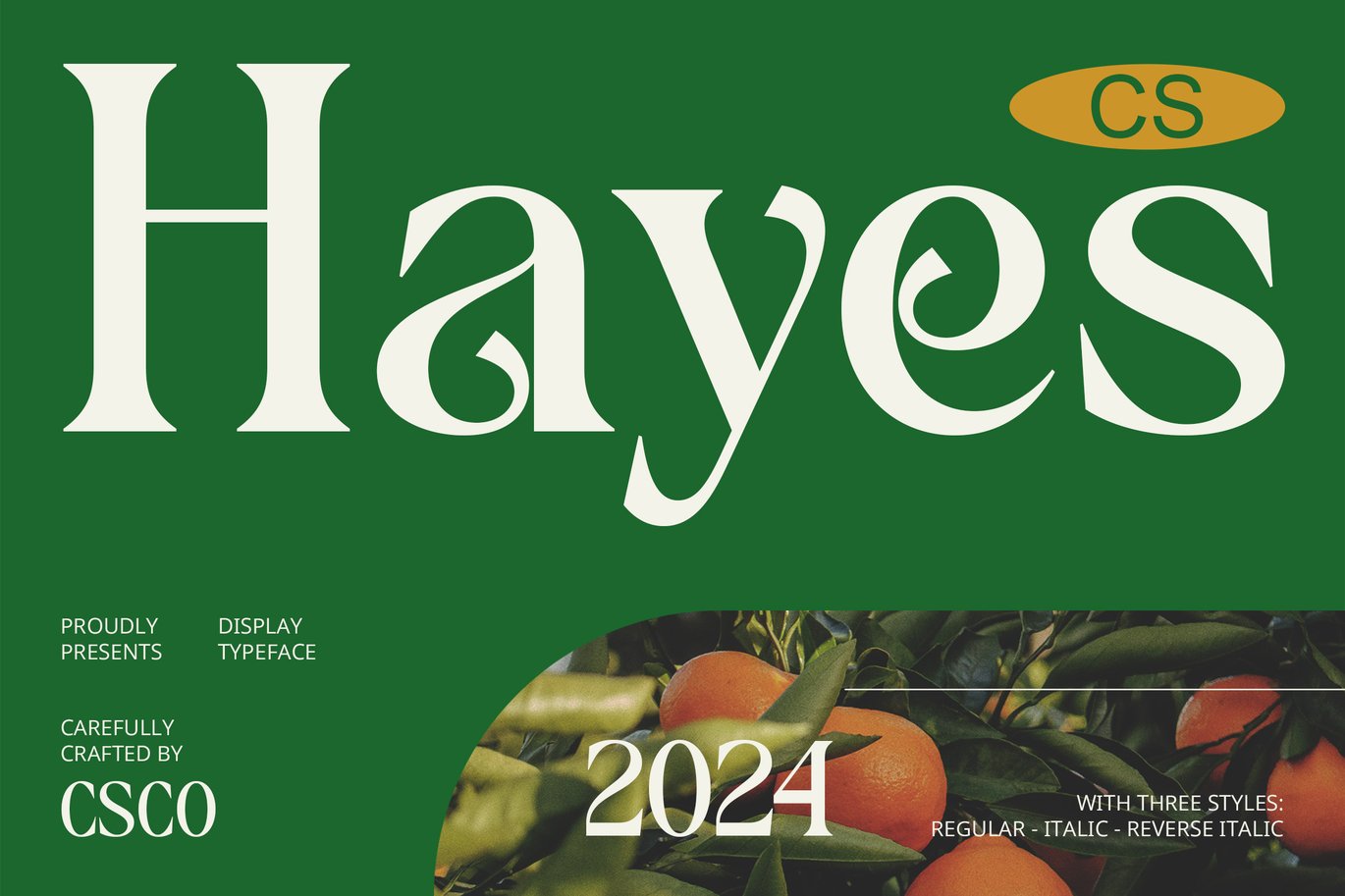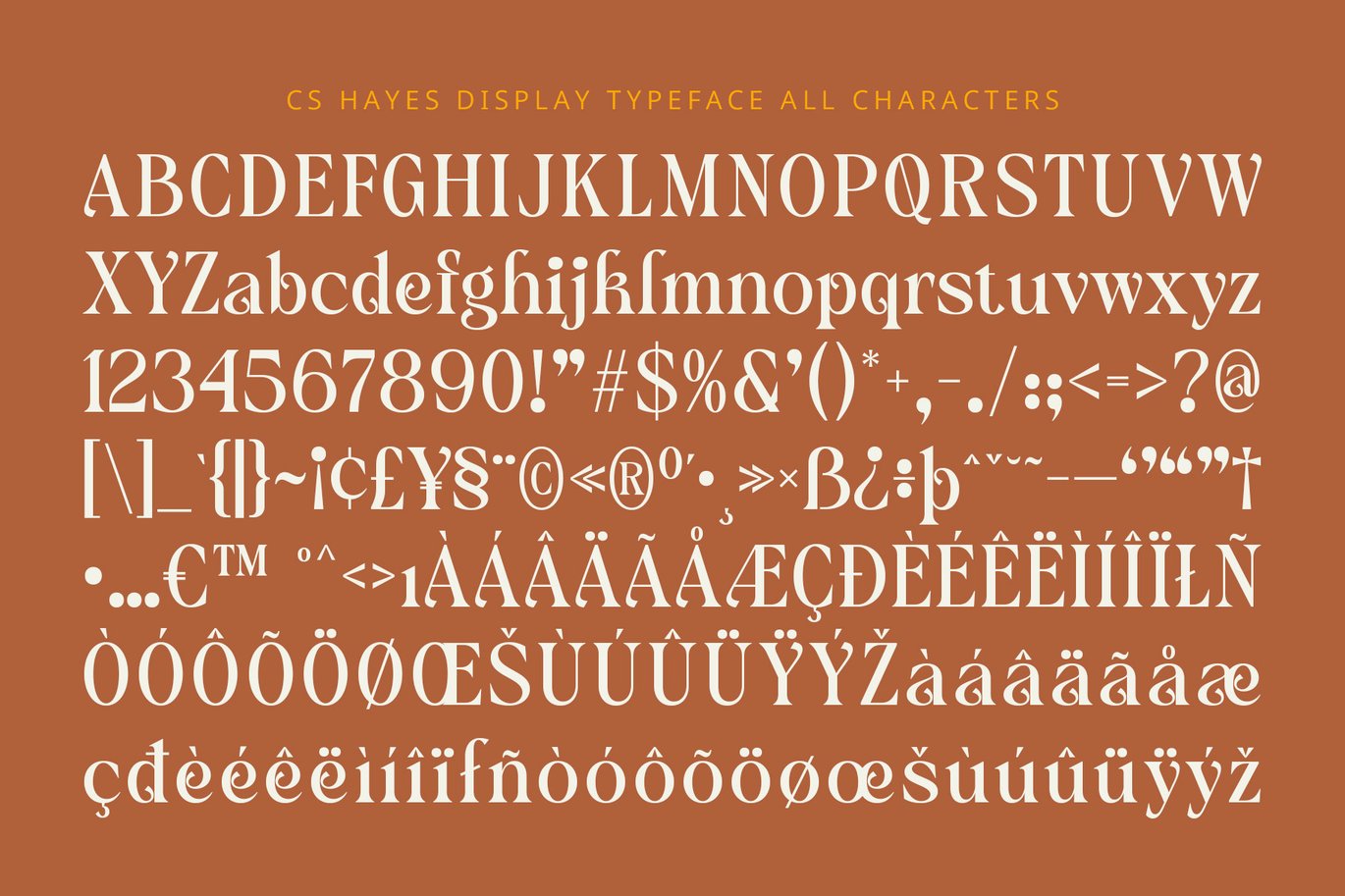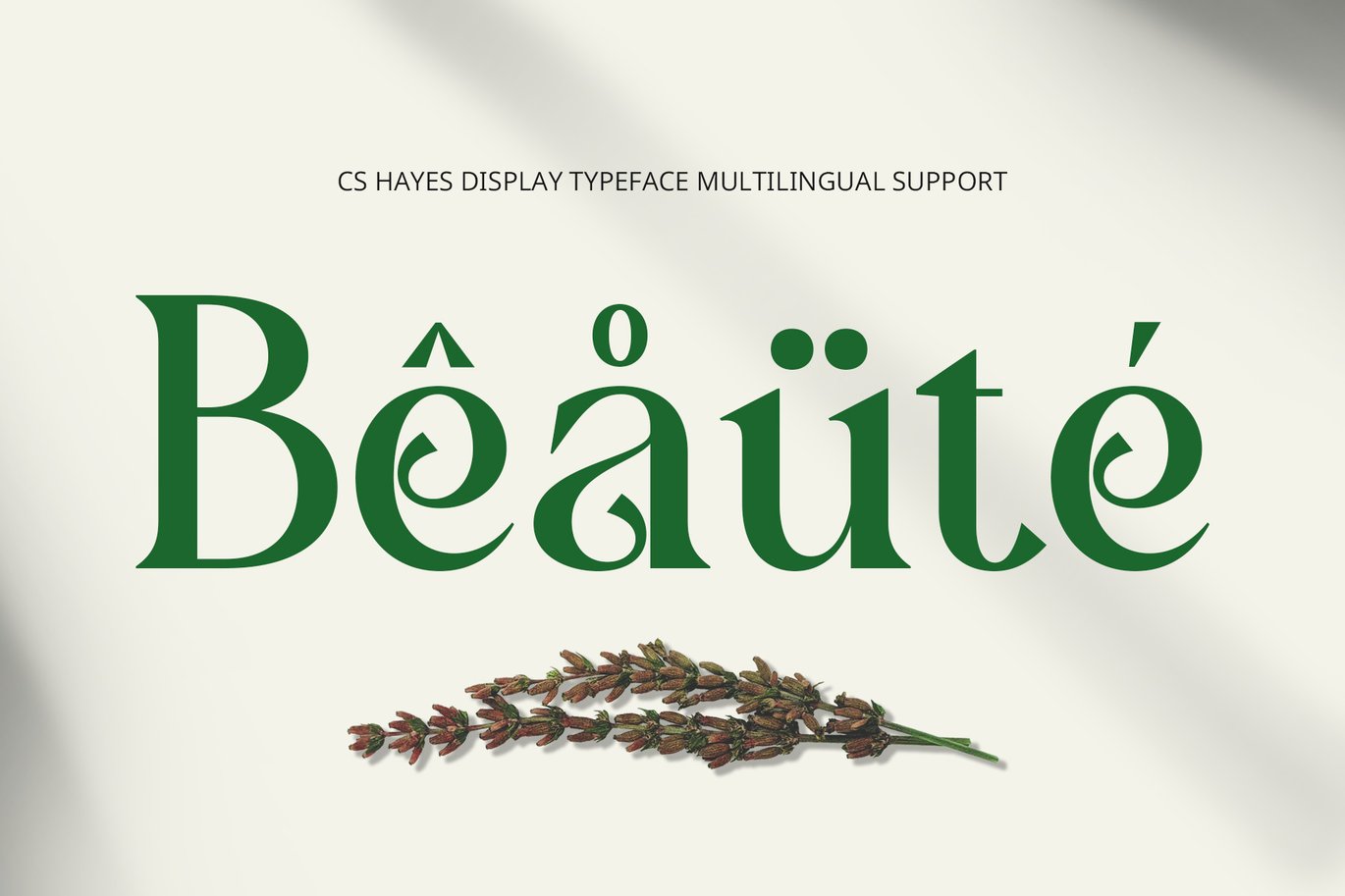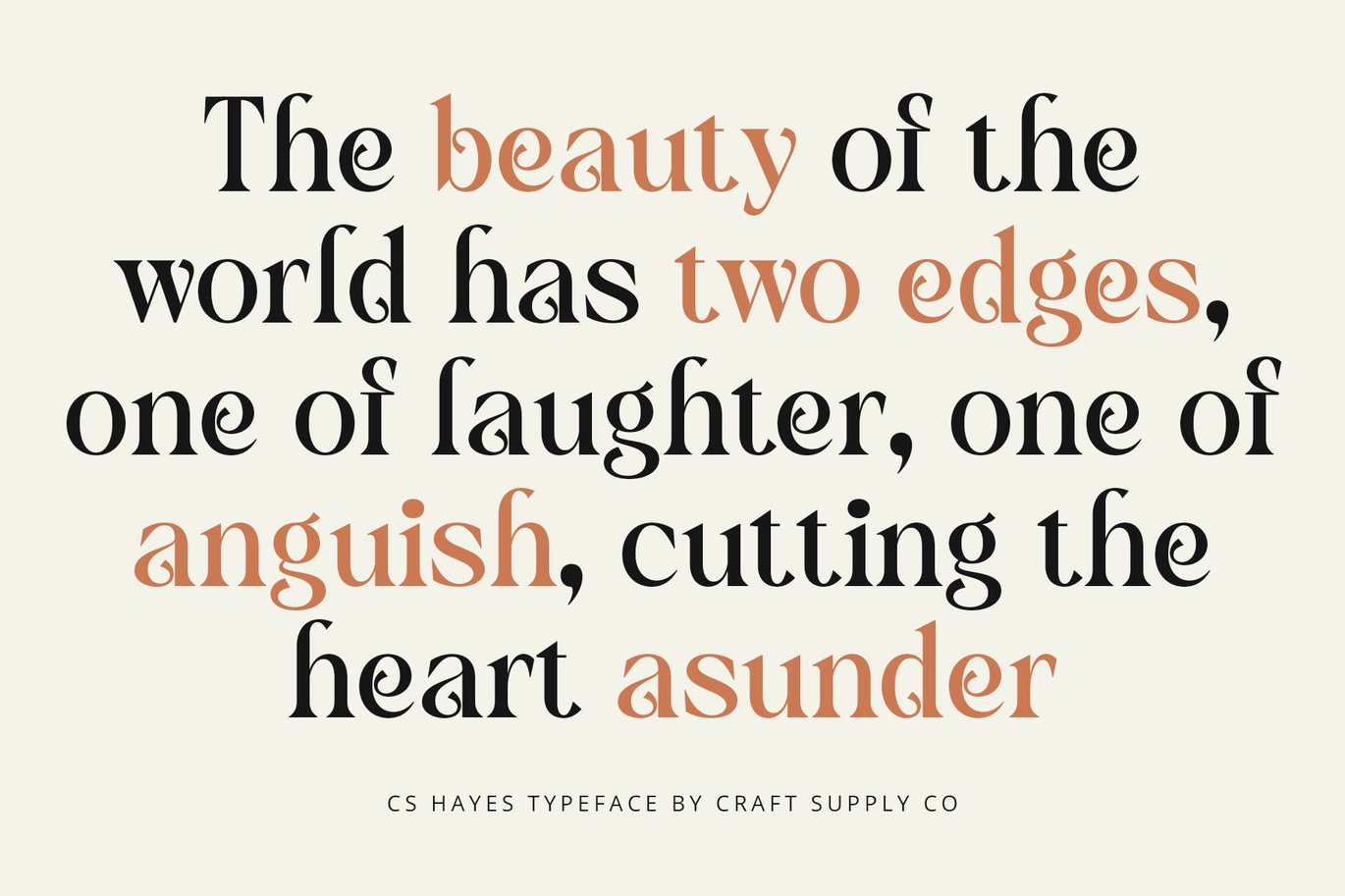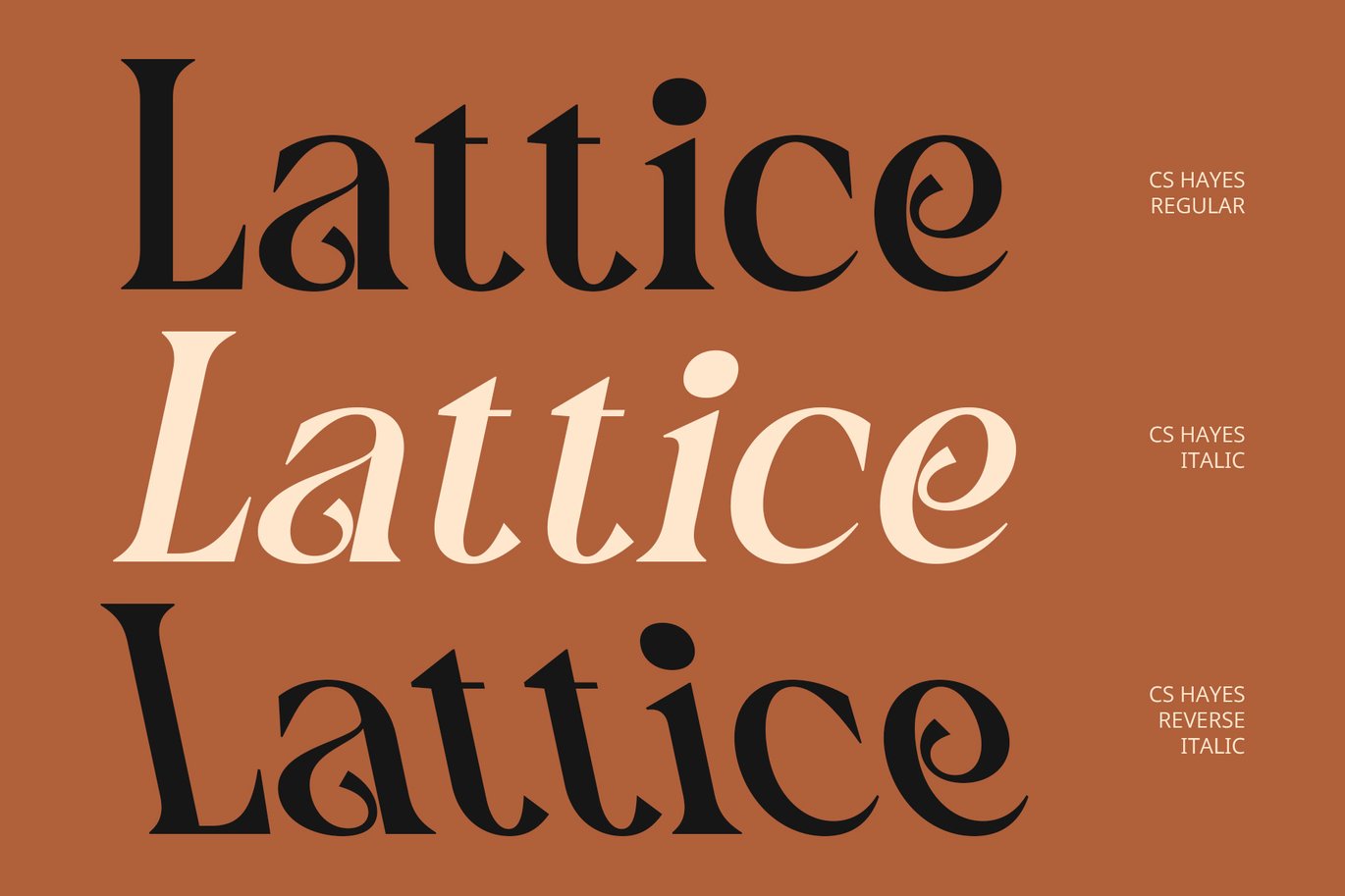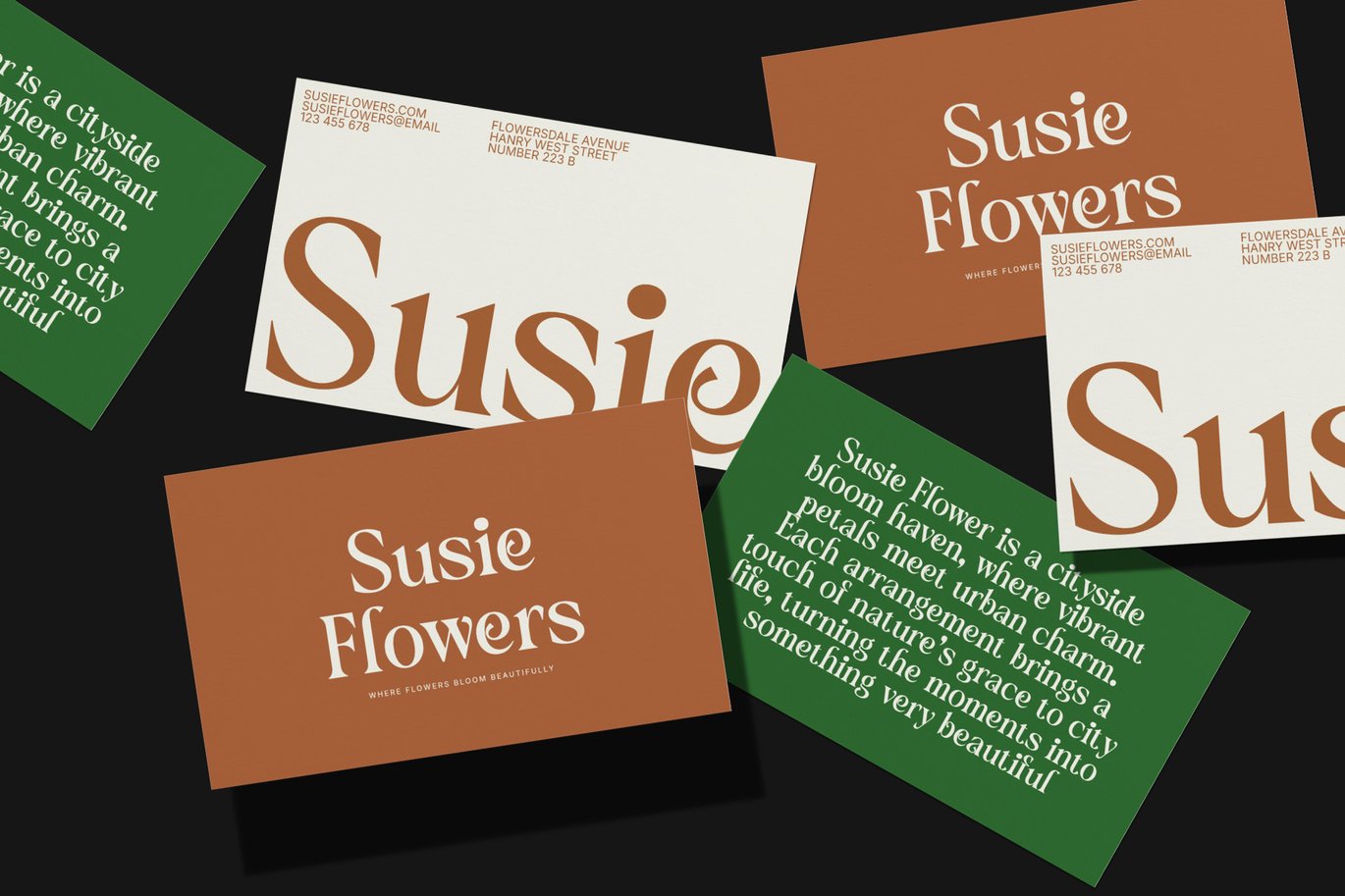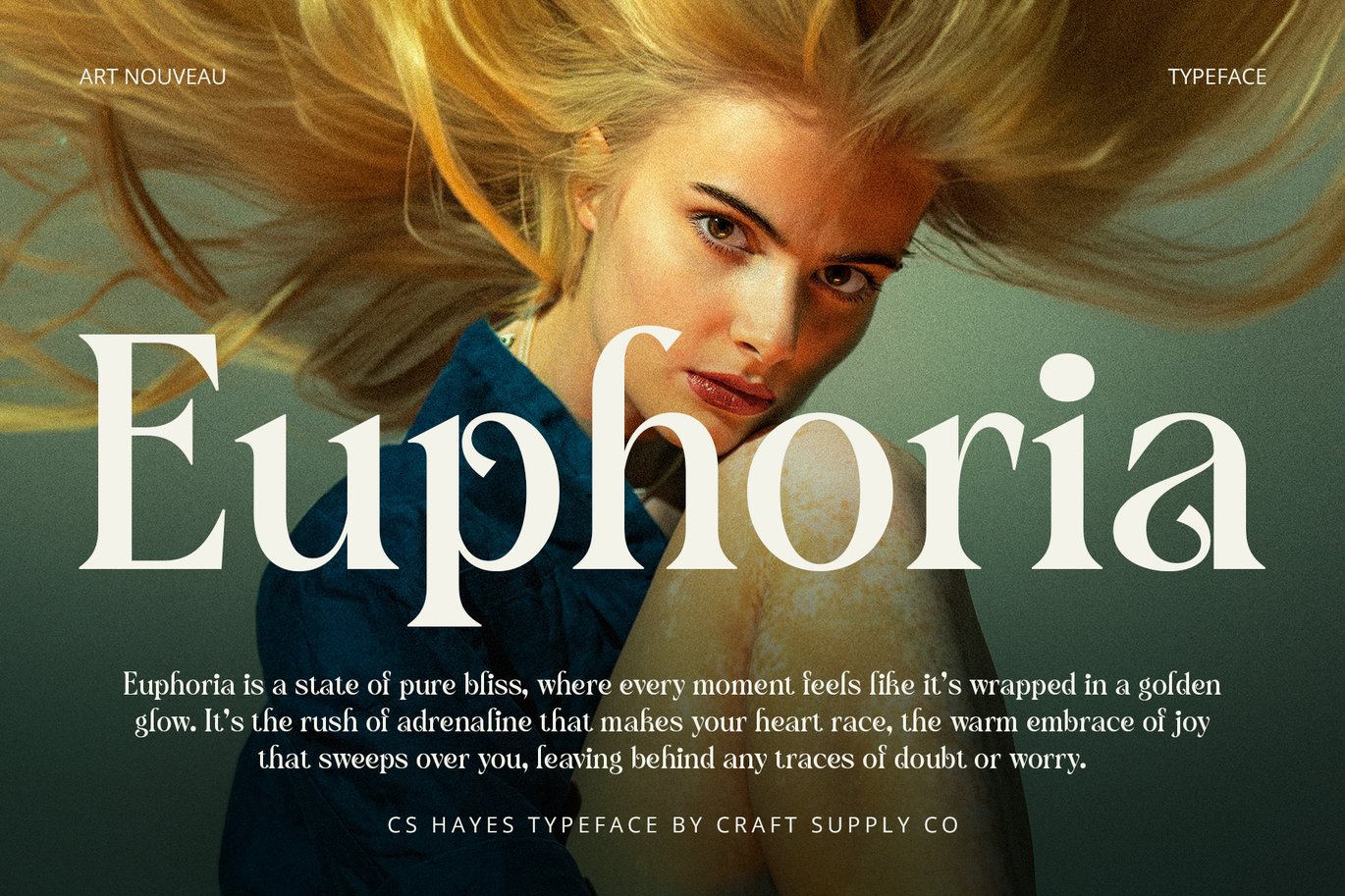
Hayes – Art Nouveau Font
CS Hayes Font: A Fusion of Modern Elegance and Art Nouveau Inspiration
Elegantly Artistic and Contemporary
CS Hayes is a stunning display serif font that harmoniously blends modern design elements with the enchanting allure of Art Nouveau. This font captivates with its beautiful and elegant aesthetic, making it a perfect choice for a wide range of creative projects that demand a touch of sophistication.
Fluid Curves and Intricate Details
Characterized by smooth curves and intricate details, CS Hayes presents a strong artistic impression that stands out in any setting. The font’s flowing forms and ornamental features reflect the organic shapes and decorative motifs typical of the Art Nouveau movement, infusing designs with a sense of grace and fluidity.
Balanced Proportions and Nature-Inspired Ornaments
With its balanced proportions, CS Hayes achieves a visual harmony that enhances readability while maintaining its artistic flair. The nature-inspired ornaments delicately woven into the letterforms evoke a sense of whimsy and elegance, ideal for designs that aim to convey beauty and sophistication.
Perfect for Luxurious Branding and Special Occasions
This font excels in projects that emphasize elegance, such as invitations, posters, luxury branding, and high-end marketing materials. Whether you’re designing an exquisite wedding invitation or creating eye-catching promotional graphics, CS Hayes elevates the overall aesthetic, making every piece feel special and refined.